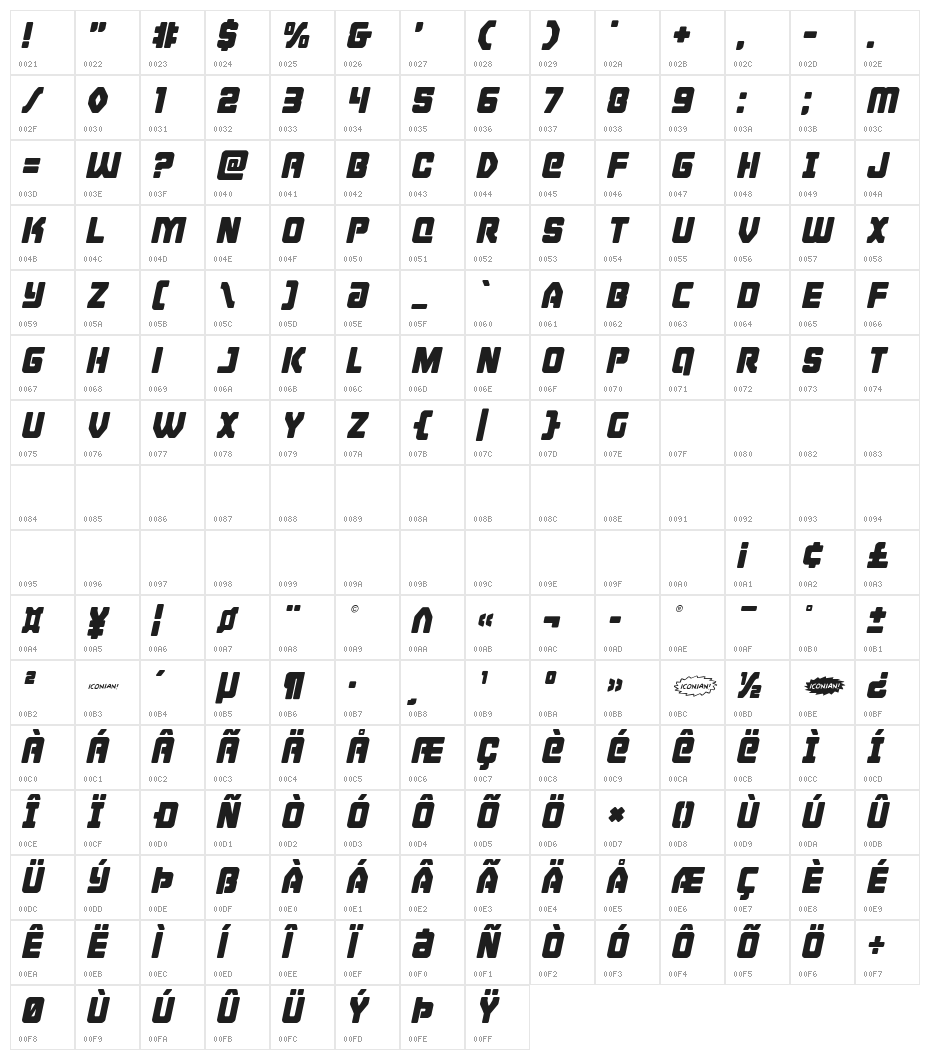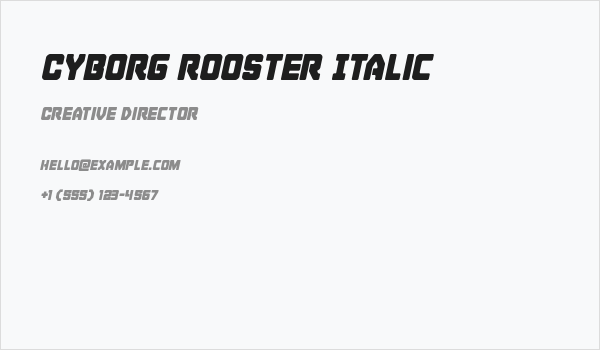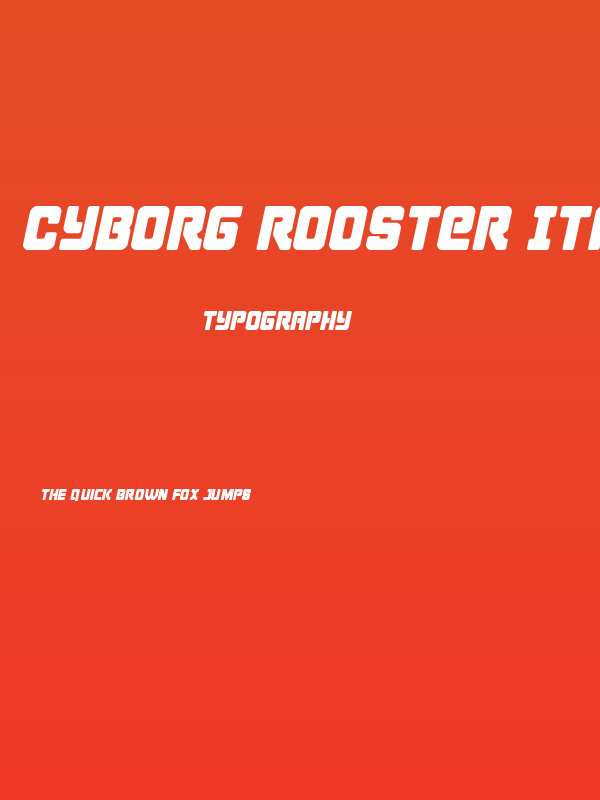
Cyborg Rooster Italic Font
Cyborg Rooster Italic Description
This font features a bold, futuristic design with a distinct italic slant, giving it a dynamic and forward-moving appearance. The characters are blocky and geometric, with sharp angles and a consistent stroke width that conveys strength and modernity. The uppercase and lowercase letters maintain a uniform style, while the numerals and special characters integrate seamlessly with the overall design. The font's unique style makes it stand out, suitable for projects that require a strong visual impact.
| Proposed Projects | Ideal for sci-fi themed projects, video game titles, technology branding, and futuristic posters. |